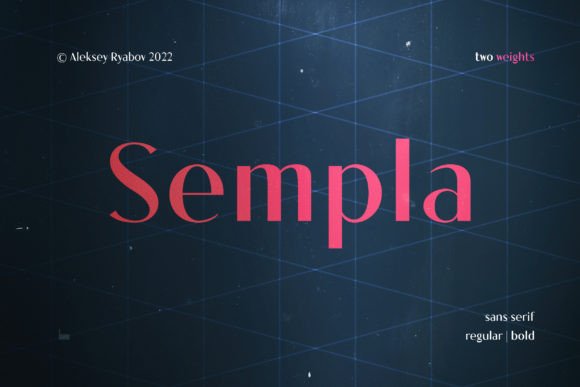
**Step into a realm of typographic elegance with Sempla Font, a sophisticated sans serif creation by the renowned Plotomad.**
Unleash the transformative power of fonts and elevate your designs to new heights. Sempla Font is not merely a collection of characters; it's a gateway to a world of creativity and expression.
Sempla's clean lines and graceful curves evoke a sense of timeless sophistication. It effortlessly complements a myriad of design concepts, bringing an air of refinement and elegance to every project. From the heartfelt sentiments of wedding invitations to the professional polish of logos, Sempla Font adapts seamlessly, adding a touch of understated style.
But it's not just about aesthetics. Sempla Font is also a master of legibility, ensuring that your message is conveyed with clarity and impact. Its carefully crafted letterforms are designed to enhance readability, even in challenging design environments.
So, why settle for ordinary when you can embrace the extraordinary? Let Sempla Font be your creative muse, inspiring you to craft designs that captivate and enchant.
**Experience the allure of Sempla Font today and unlock the potential for typographic brilliance within your designs.**